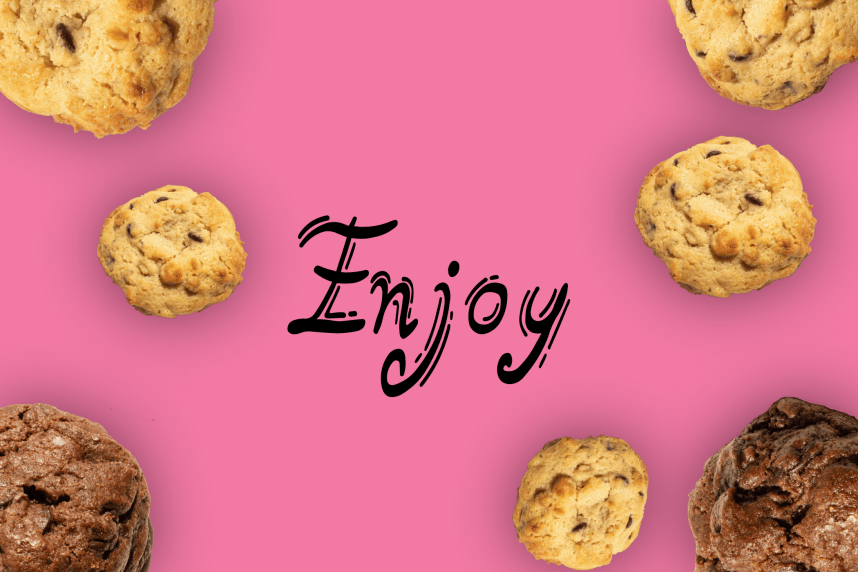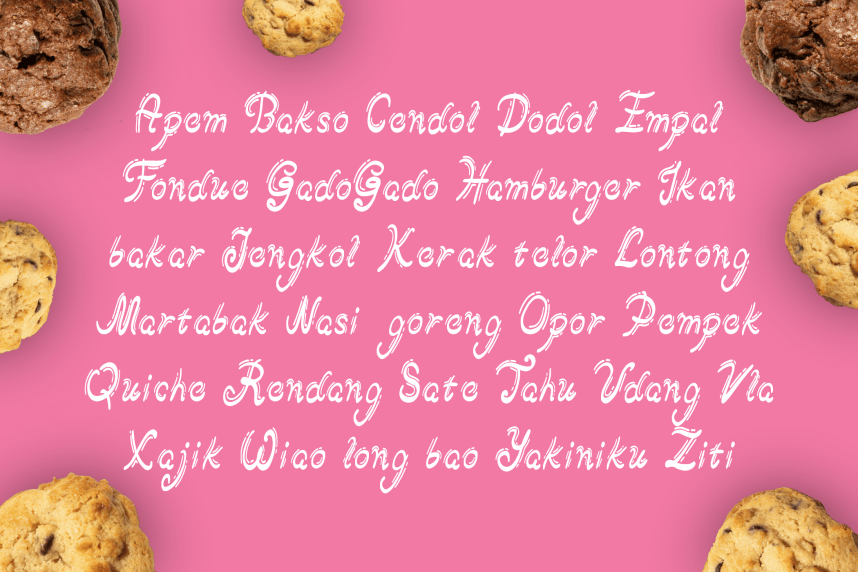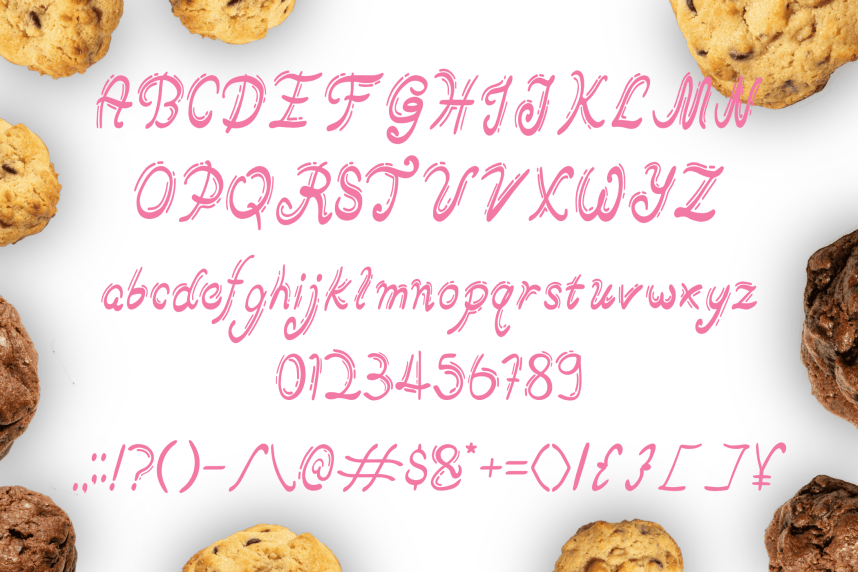
Crumble Handwritten Font – A free-spirited, youthful handwritten font full of charm and energy. Ideal for bakeries, cookie shops, and pastry brands looking to add a playful, homemade feel to their packaging, menus, and signage.